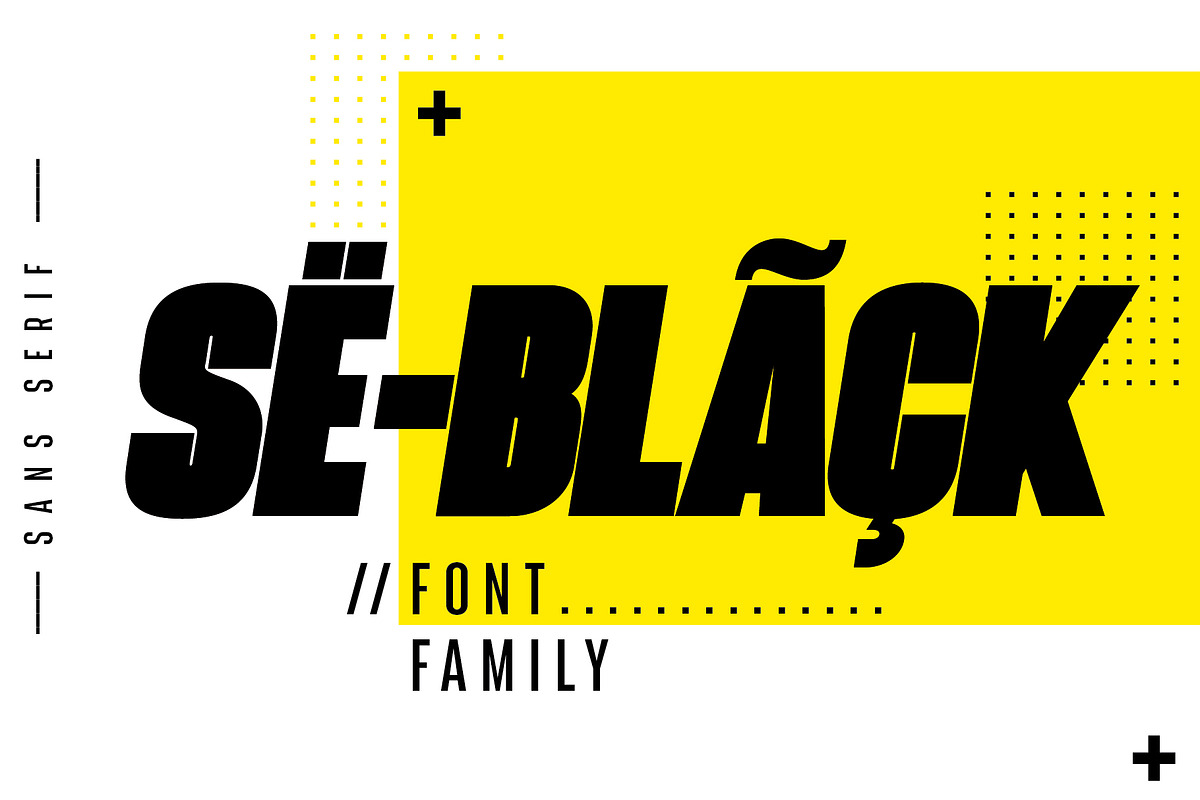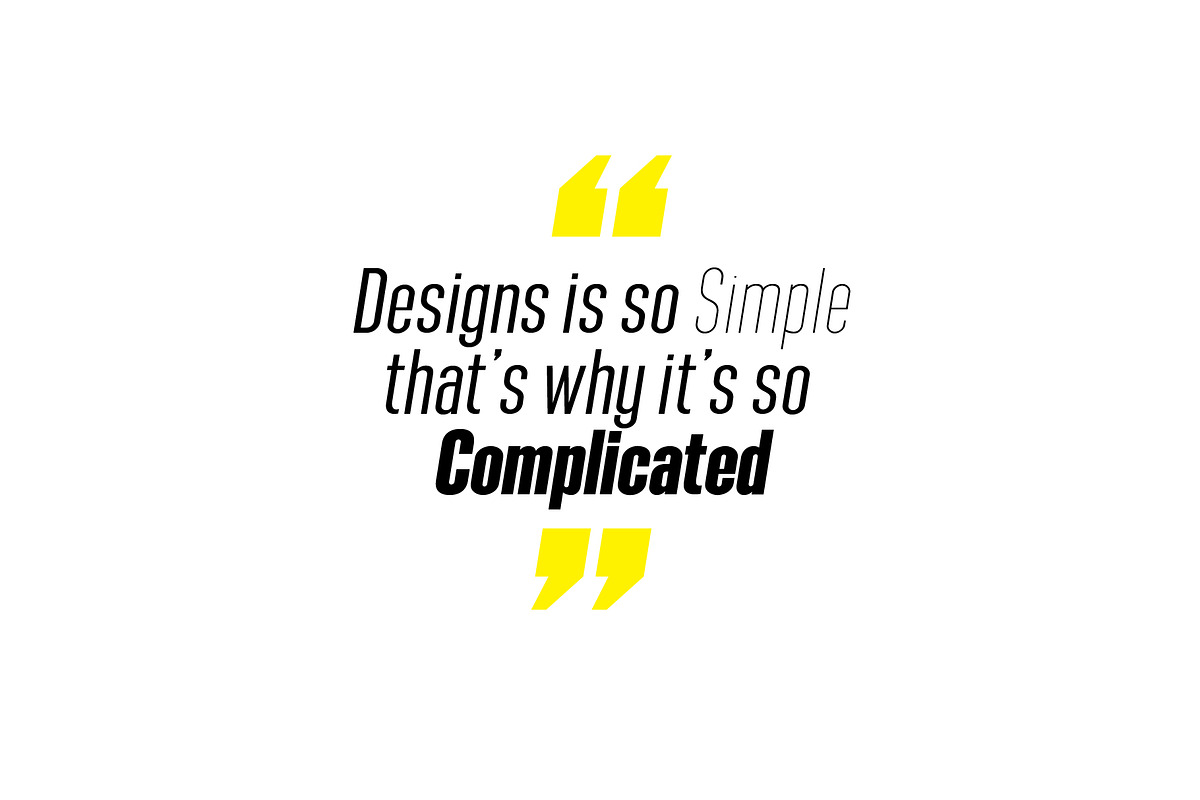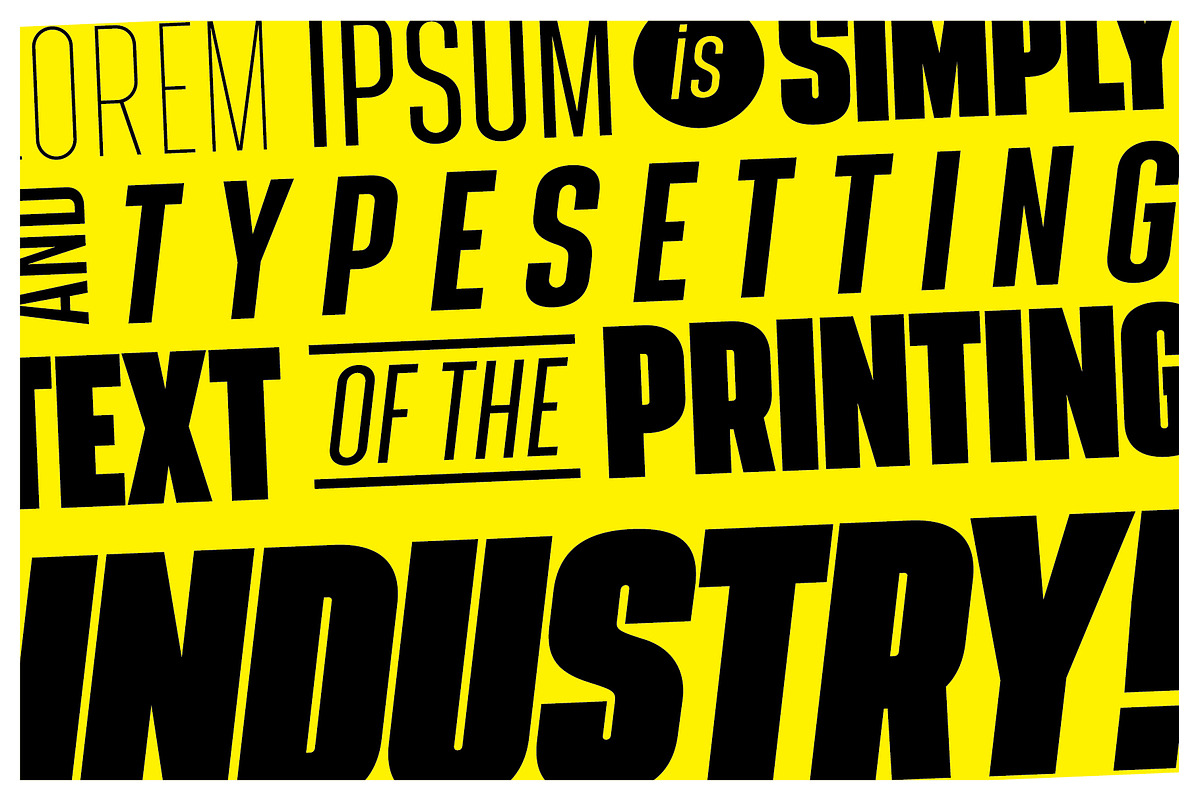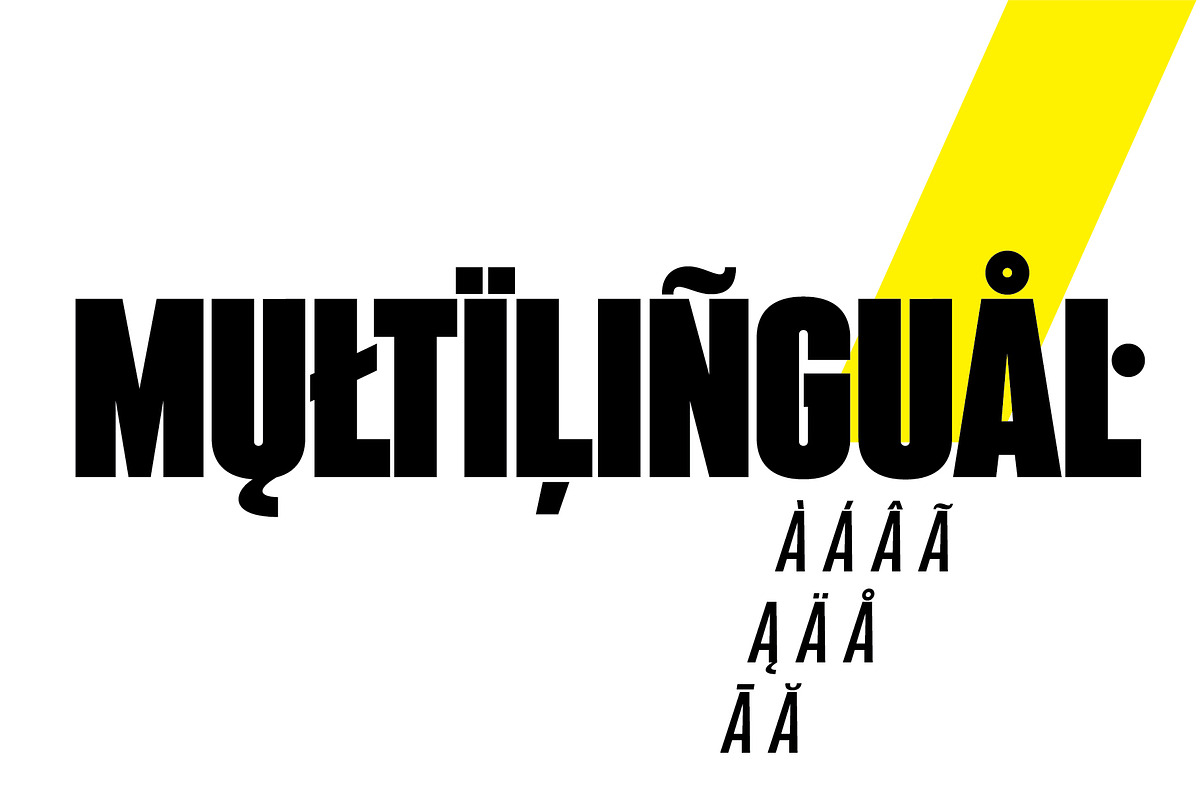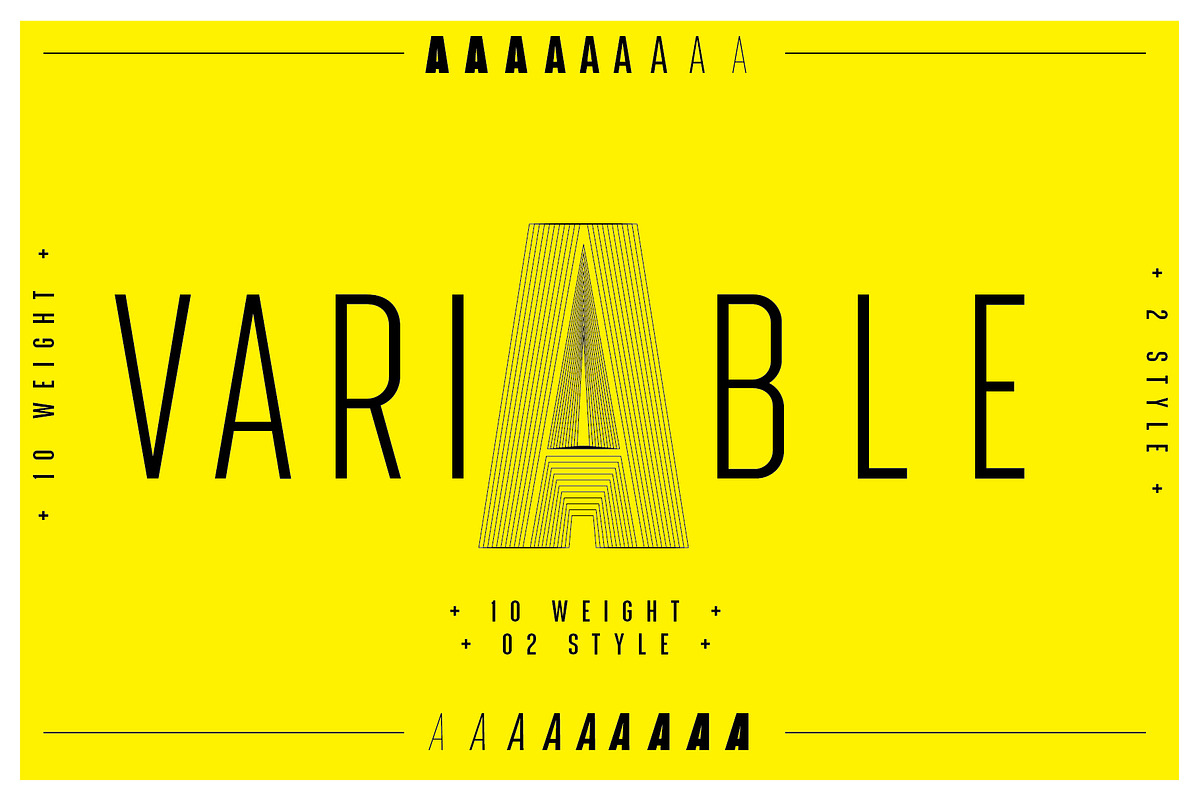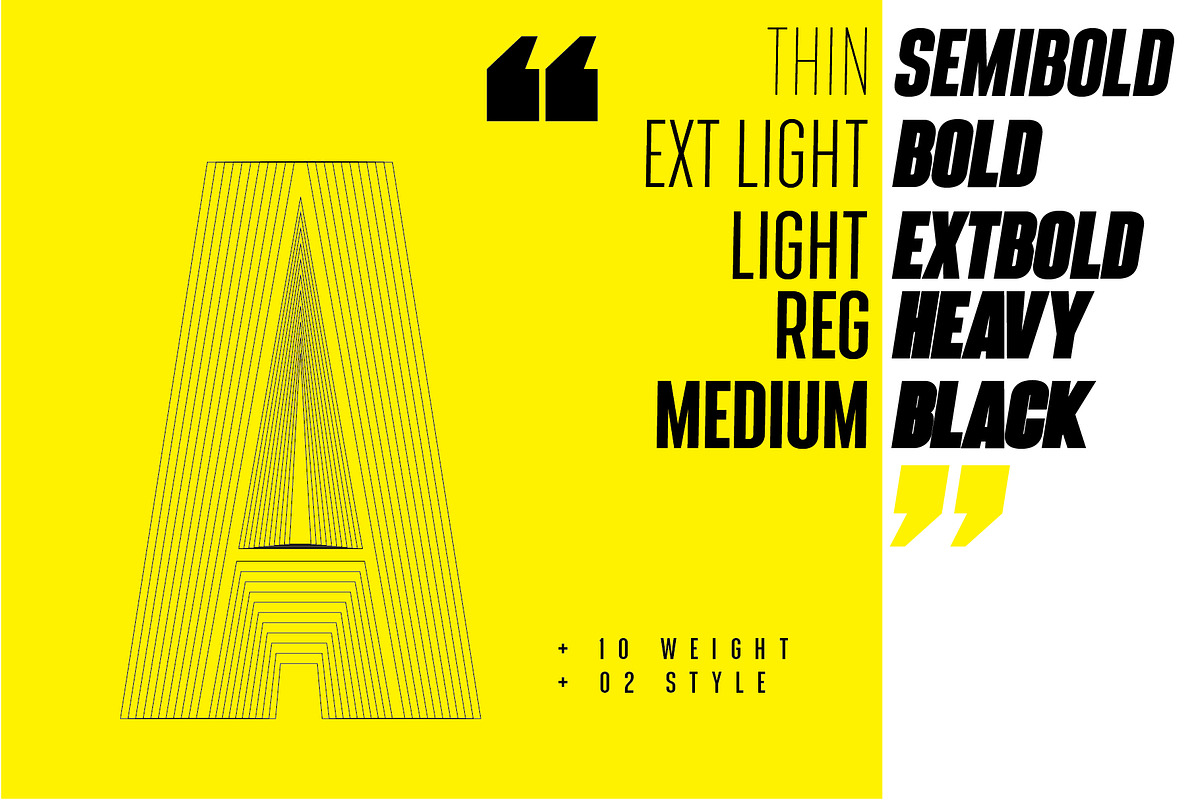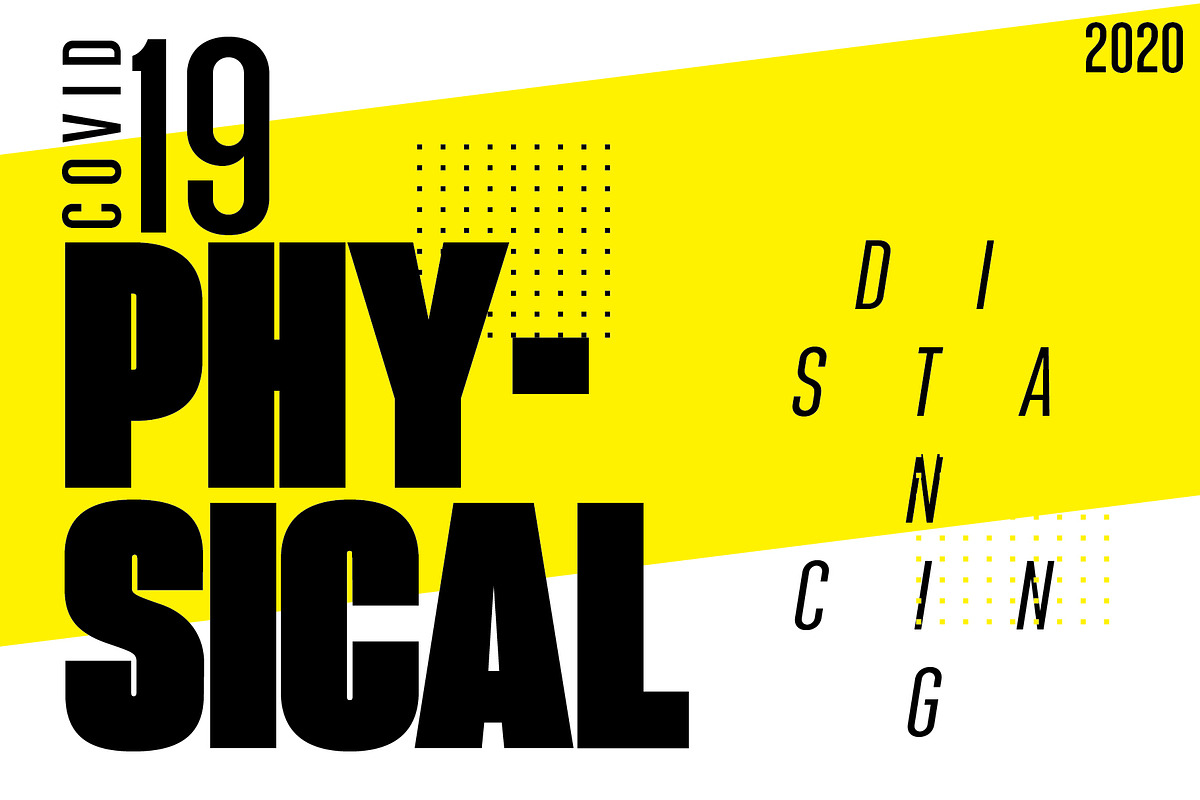
SeBlack Sans Serif Font family
Seblack is sans serif font, with Lowercase come in two styles, regular and italic. also available in 10 weight,
2 Style Regular and Italics
- 10 Weights
- 2 Style Regular and Italics
Why SeBlack Sans Serif Font family is worth a look
SeBlack Sans Serif Font family by beetlepixels fits naturally into Branding, posters, packaging, typography.